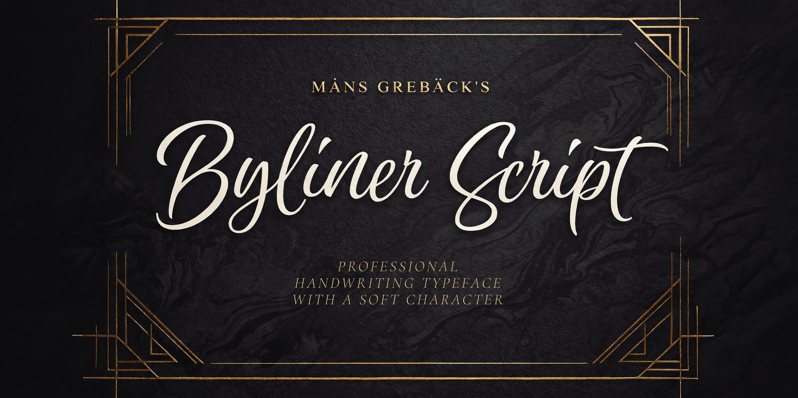
Byliner Script
NOTE: This font is for PERSONAL USE ONLY! To purchase a commercial license, visit: https://www.mansgreback.com/product/byliner-script Byliner Script is a flowing handwritten typeface with a calm, confident rhythm. The letters are drawn with a steady hand and a natural slant, balancing smooth curves with slightly firm strokes — relaxed elegance like a practiced signature. For questions, please visit https://mansgreback.com/faq